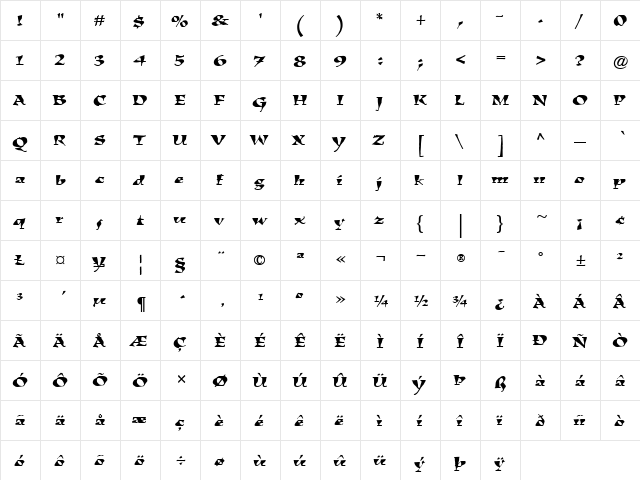
KigaliSx Roman
Design Context for KigaliSx Typeface
KigaliSx is a composed and adaptable typeface that performs quietly and consistently across a wide range of design contexts.